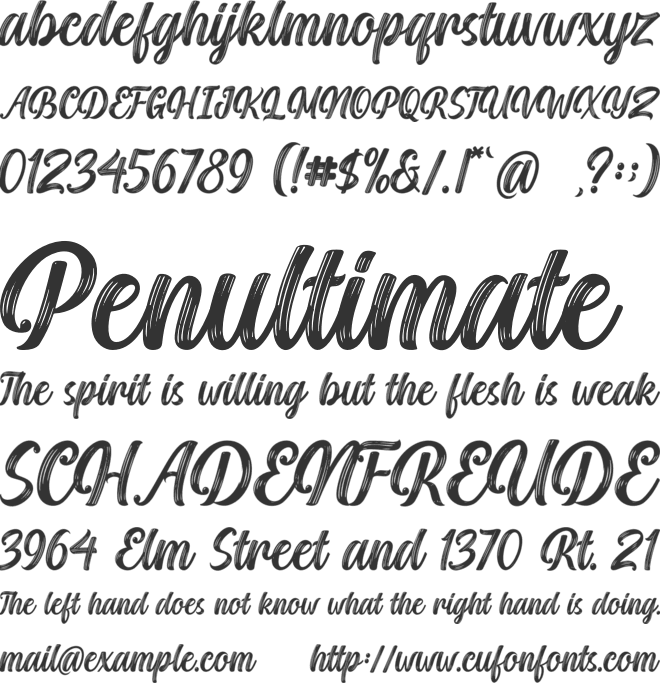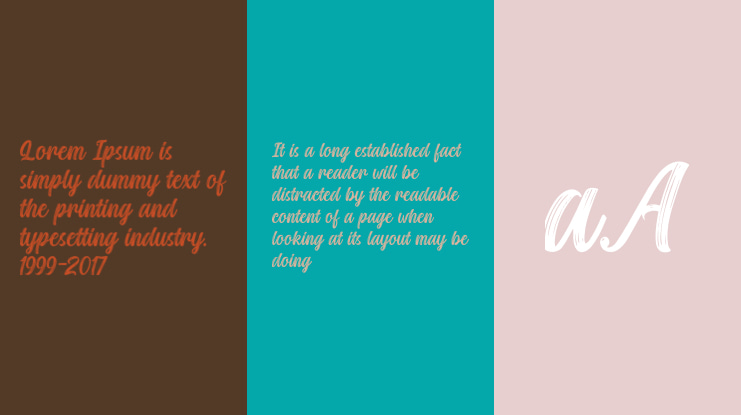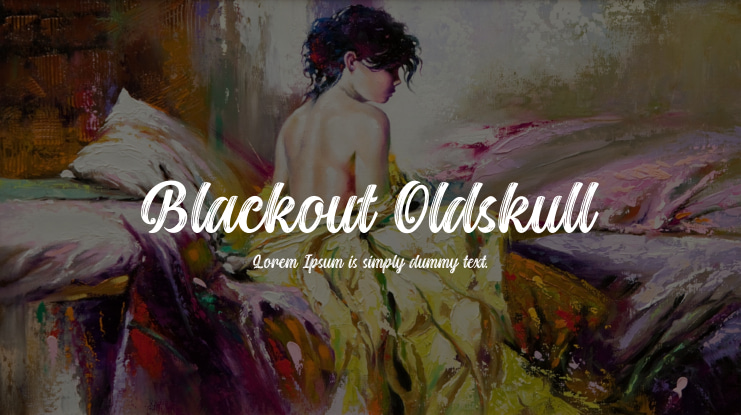
Hello Ladies & Gentlemen,
Allow me to introduce myself. My name is Blackout Oldskull Font. I was born with a retro-style handwriting using a brush and have an Extrude feature as a 3D layer. You can use this font to enhance the appearance of your designs.
This Blackout Oldskull font is very Instagrammable and can be used for various projects, such as company branding, logotypes, and product branding. Whether it's for clothes/hoodies, company names, shop names, or product branding, the possibilities are endless.